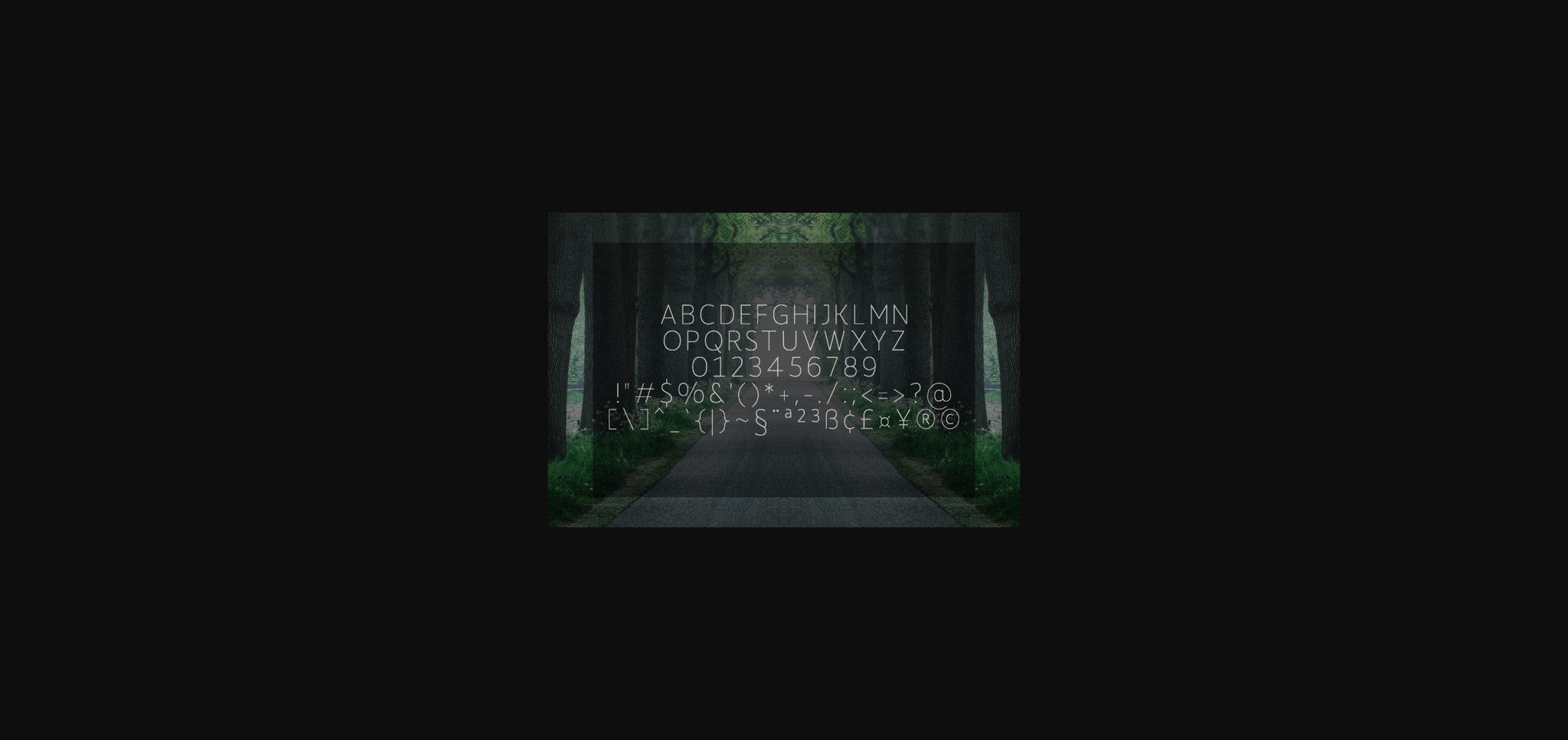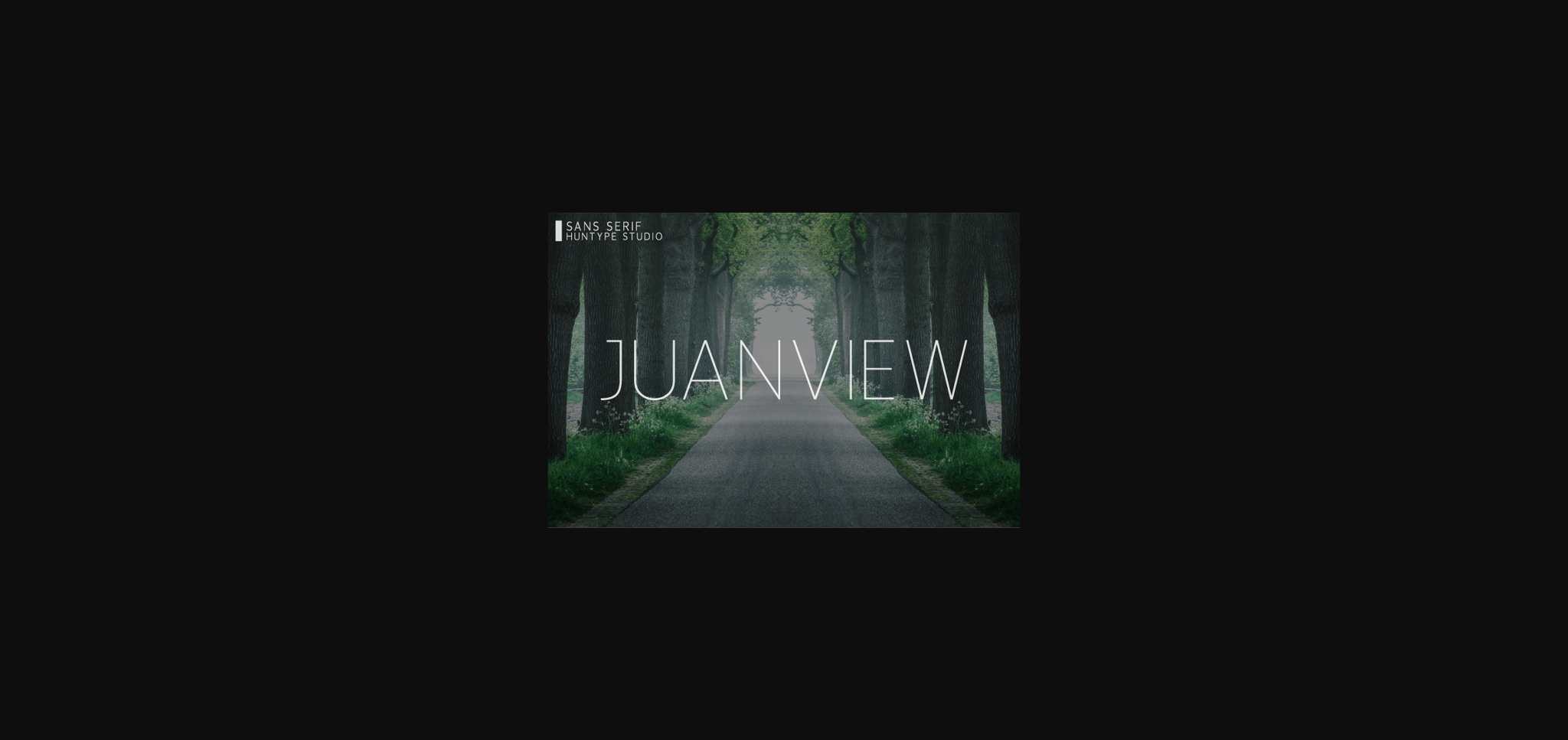
Juanview Font
About Juanview Font
Juanview is a stunning and modern sans serif font. With its neat and beautiful arrangement of letters, this typeface will look outstanding in both formal and non-formal designs.